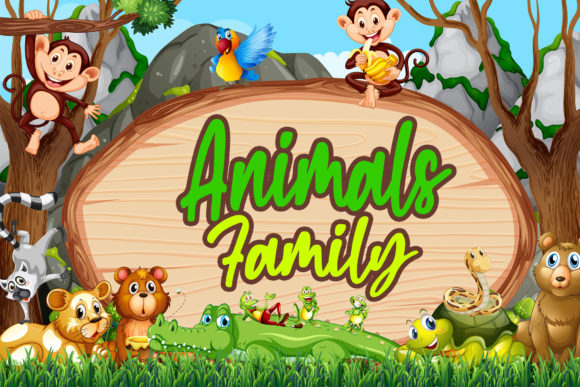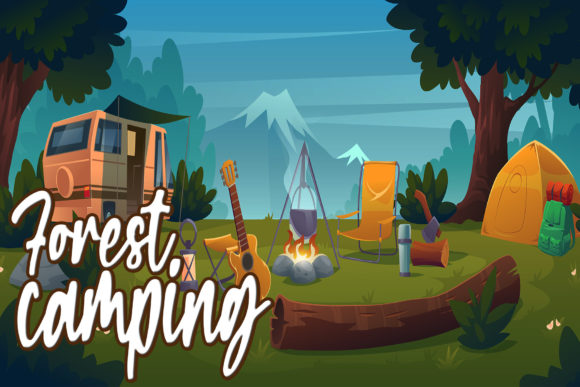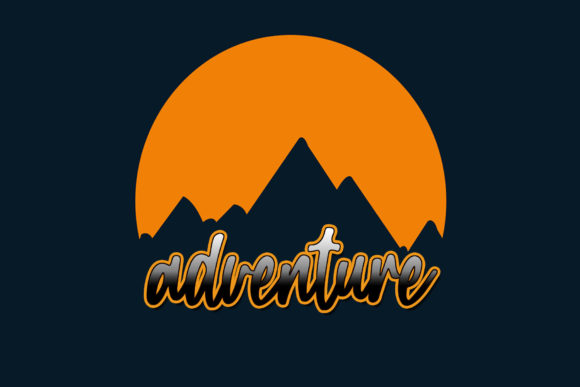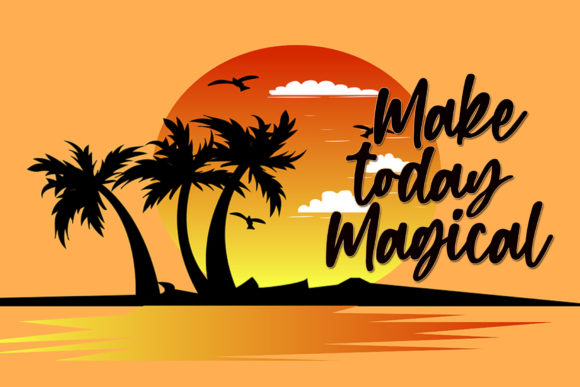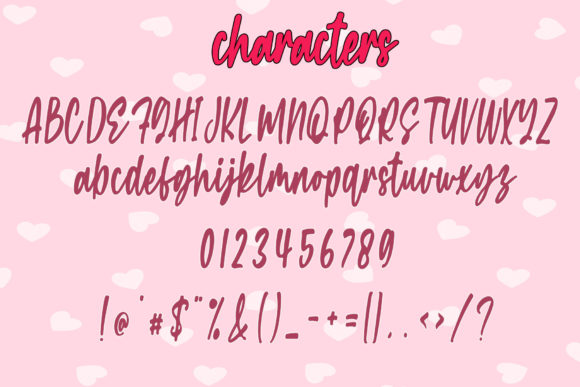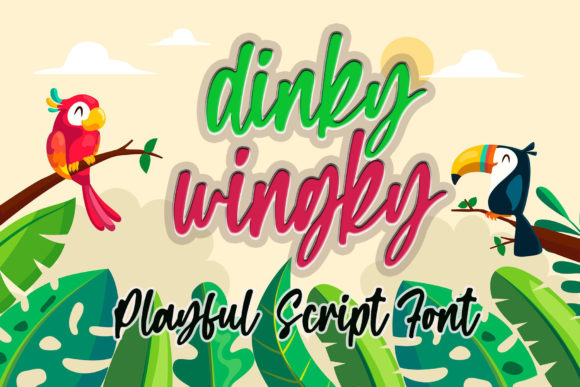
Dinky Winky Font: Add a Touch of Whimsy to Your Designs
Are you tired of using the same old fonts in your designs? Look no further than the Dinky Winky font, a lovely script font that features charming, playful characters that seem to dance along the baseline. With its unique and eye-catching style, Dinky Winky is sure to make your designs stand out from the crowd.
What is Dinky Winky Font?
Dinky Winky is a script font that is perfect for designers and crafters looking to add a touch of whimsy to their work. The font features beautiful, hand-drawn characters that are full of personality and charm. Each letter is carefully crafted to create a sense of movement and playfulness, making it perfect for designs that need a bit of flair.
Key Features of Dinky Winky Font
- Unique and eye-catching style: Dinky Winky font has a distinctive style that sets it apart from other fonts. Its playful characters are sure to grab attention and make your designs stand out.
- Charming and playful characters: Each character in the Dinky Winky font is carefully crafted to be charming and playful, making it perfect for designs that need a bit of personality.
- Hand-drawn with love and care: The Dinky Winky font is hand-drawn with love and care, giving it a unique and personal touch.
- Perfect for creative projects: Whether you’re working on a logo, invitation, or any other creative project, Dinky Winky font is the perfect choice.
Why Use Dinky Winky Font?
There are many reasons why you should consider using Dinky Winky font in your designs. Here are just a few:
- Adds a touch of whimsy: Dinky Winky font adds a touch of whimsy and playfulness to your designs, making them more engaging and fun.
- Perfect for creative projects: Whether you’re working on a logo, invitation, or any other creative project, Dinky Winky font is the perfect choice.
- Easy to read: Despite its playful style, Dinky Winky font is easy to read, making it perfect for designs that need to be both fun and functional.
- Versatile: Dinky Winky font can be used in a variety of designs, from logos and invitations to posters and social media graphics.
How to Use Dinky Winky Font
Using Dinky Winky font in your designs is easy. Here are a few tips to get you started:
- Pair it with a bold font: Pair Dinky Winky font with a bold font to create a striking contrast that really makes your design pop.
- Use it for headings: Dinky Winky font is perfect for headings and titles, where its playful style can really shine.
- Experiment with colors: Dinky Winky font looks great in a variety of colors, so don’t be afraid to experiment and find the perfect hue for your design.
In conclusion, Dinky Winky font is a lovely script font that features charming, playful characters that seem to dance along the baseline. With its unique and eye-catching style, Dinky Winky is sure to make your designs stand out from the crowd. Whether you’re a designer, crafter, or just someone who loves to create, Dinky Winky font is a great addition to your font collection.